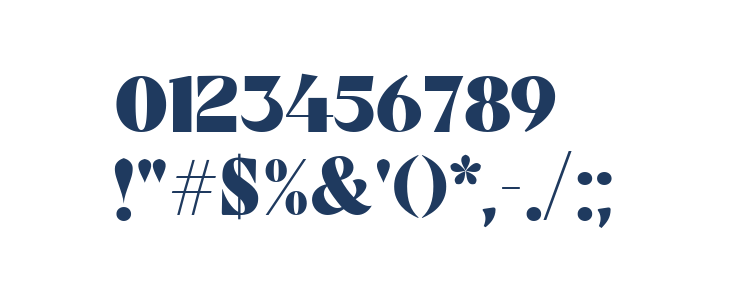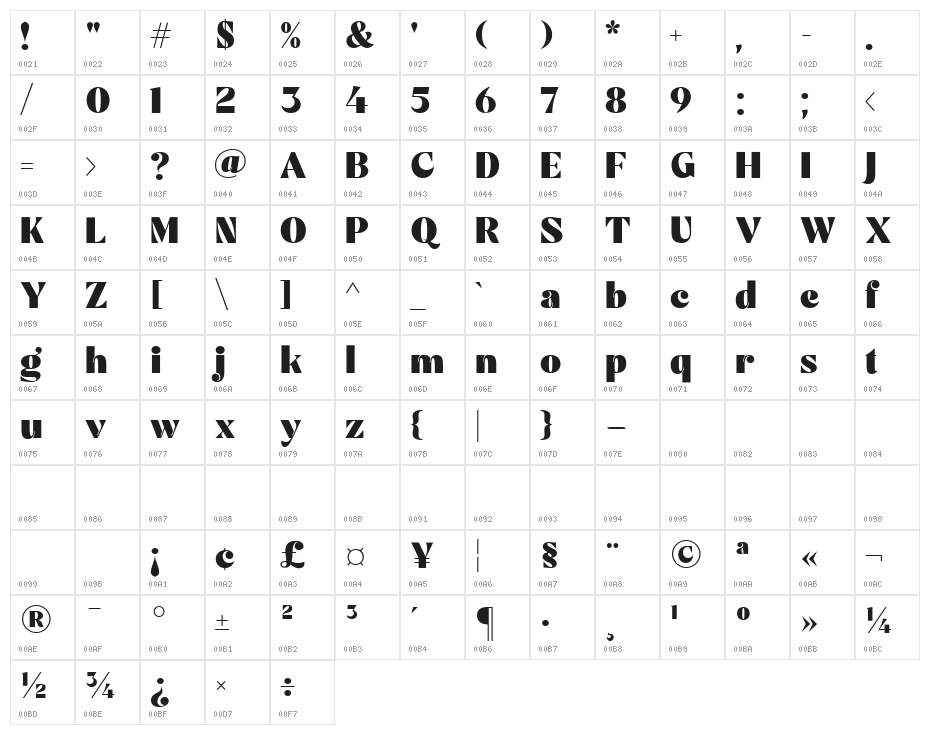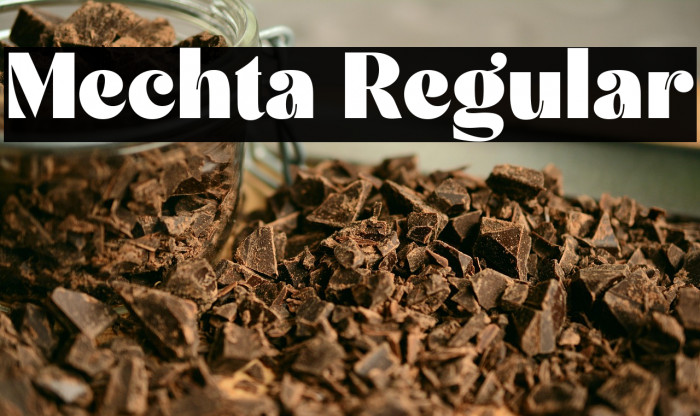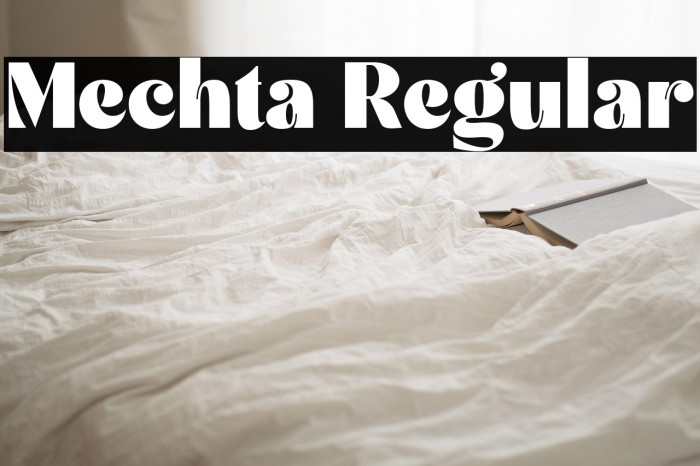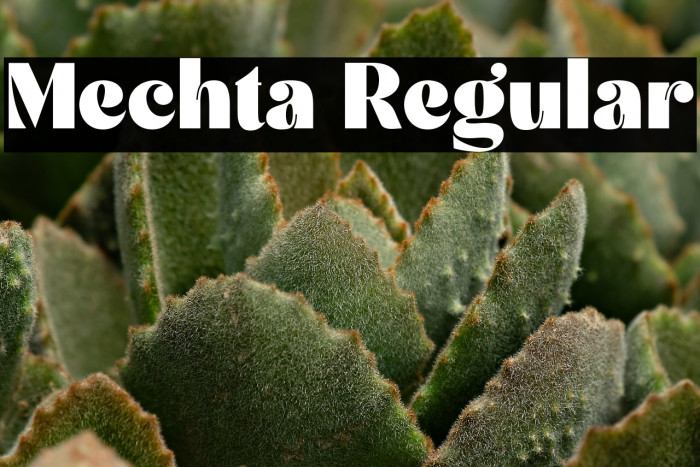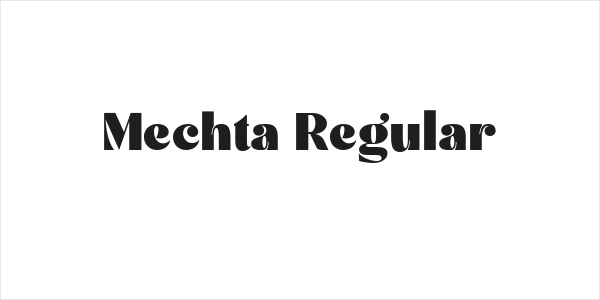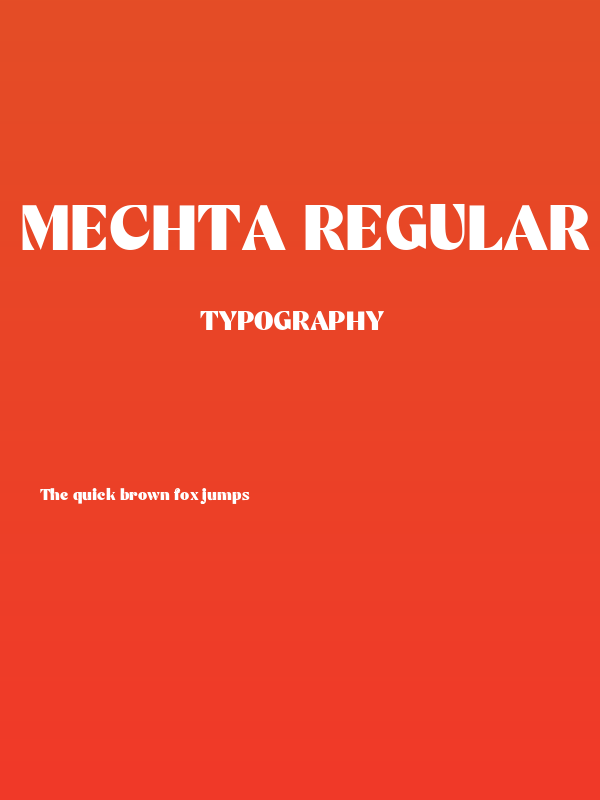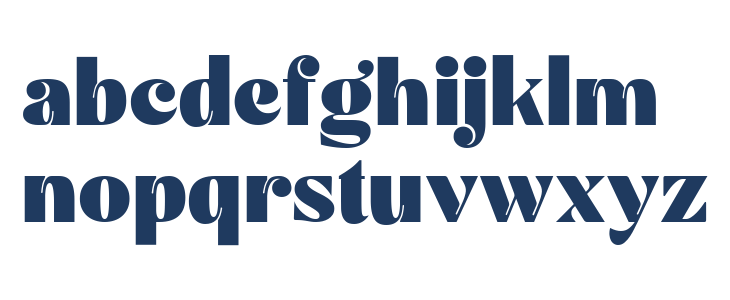
Mechta Regular Font
Mechta Regular Description
This font features bold, dramatic strokes with a high contrast between thick and thin lines, giving it a striking and impactful appearance. The characters are wide and expansive, with a distinct geometric influence that adds a modern touch. The uppercase letters are particularly bold, while the lowercase letters maintain a consistent style with slightly softer curves. The numerals are equally bold, ensuring they stand out clearly. Special characters are designed with the same boldness, maintaining the overall aesthetic. This font is ideal for making a statement, with its strong presence and unique style.
| Width | Expanded |
| Proposed Projects | Ideal for branding, headlines, posters, and any design requiring a bold statement. |